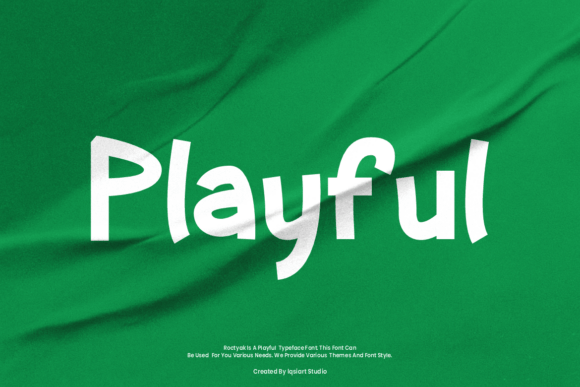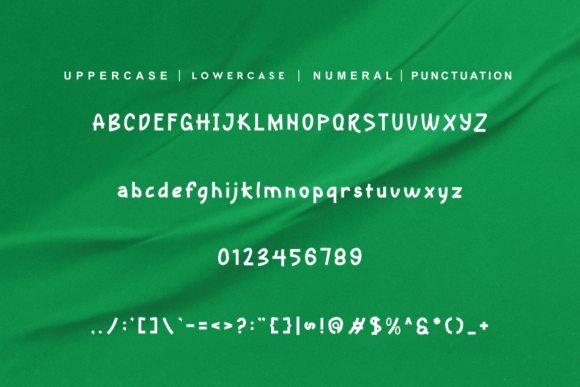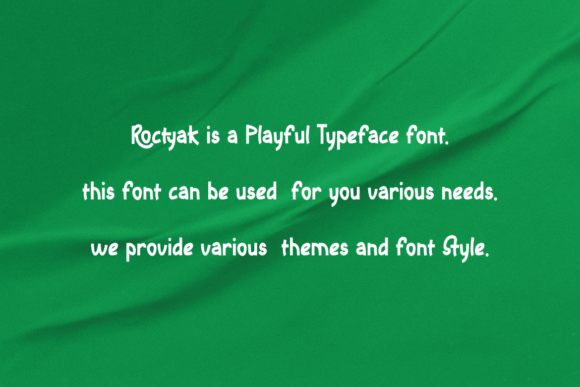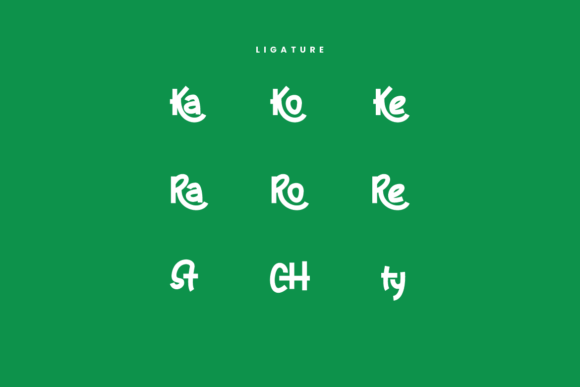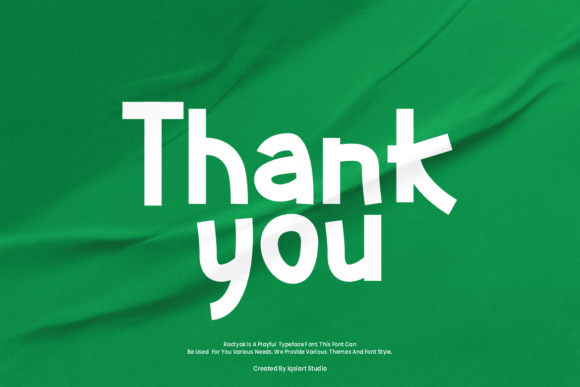
Introduction to Roctyak Font
The Roctyak typeface is a bold and playful display font designed to bring energy and character to creative projects.
Its rounded curves and dynamic strokes give it a friendly yet modern aesthetic, making it ideal for designs that need to feel approachable and fun The uppercase letters are slightly geometric with quirky angles, while the lowercase characters maintain a smooth and flowing rhythm.
Key Features of Roctyak Font